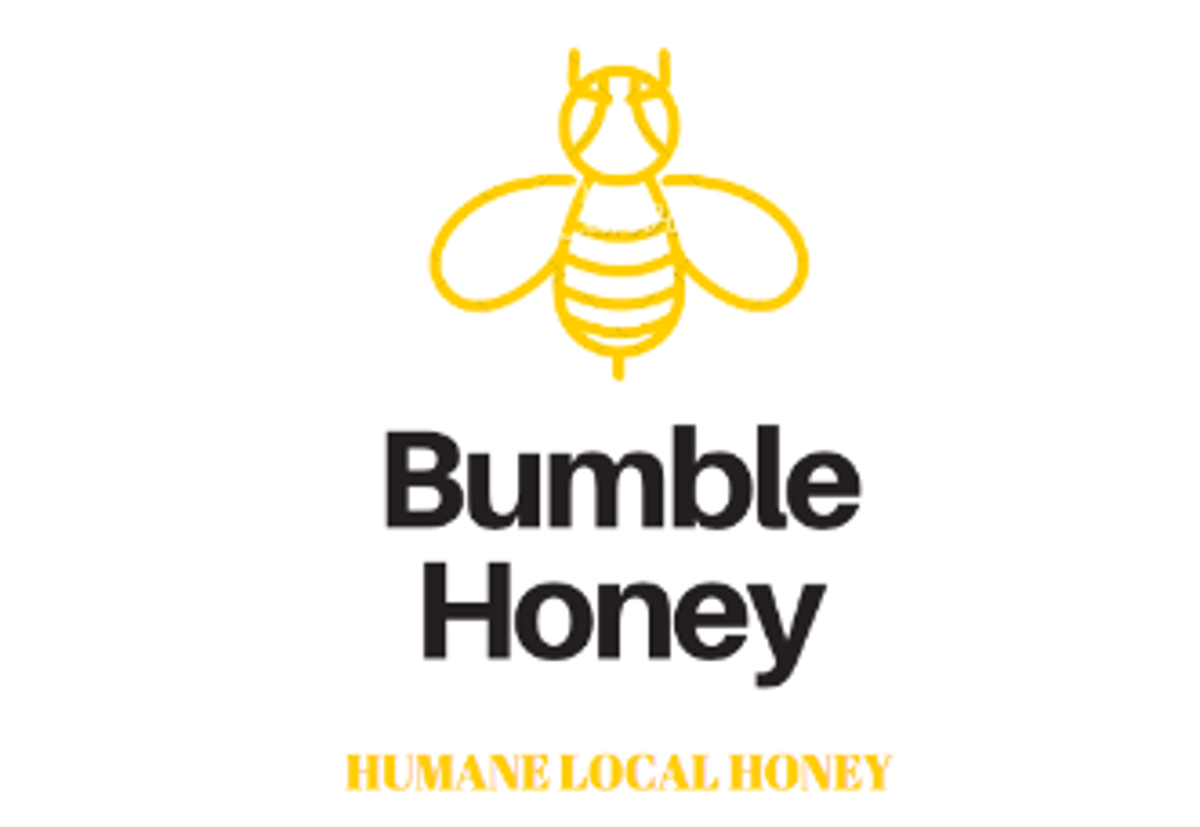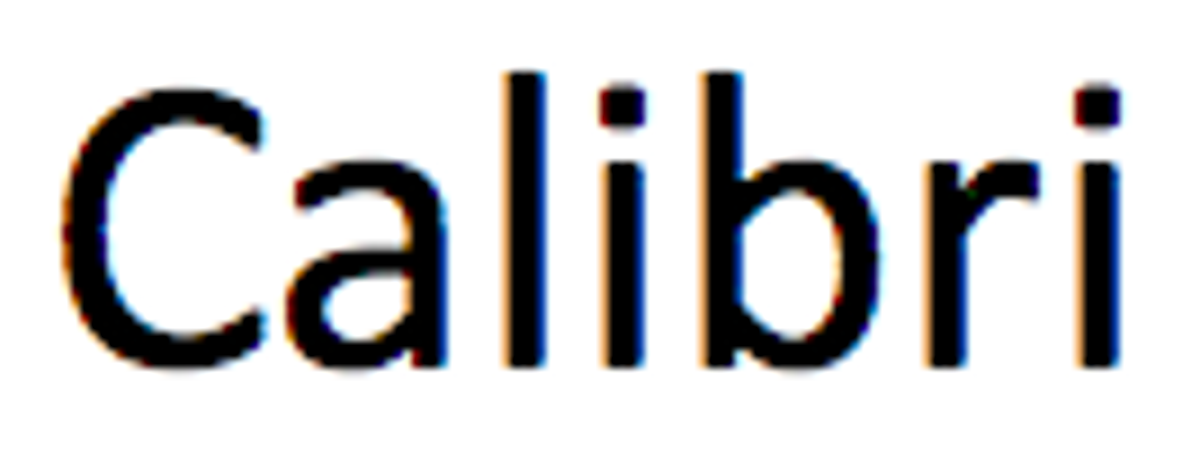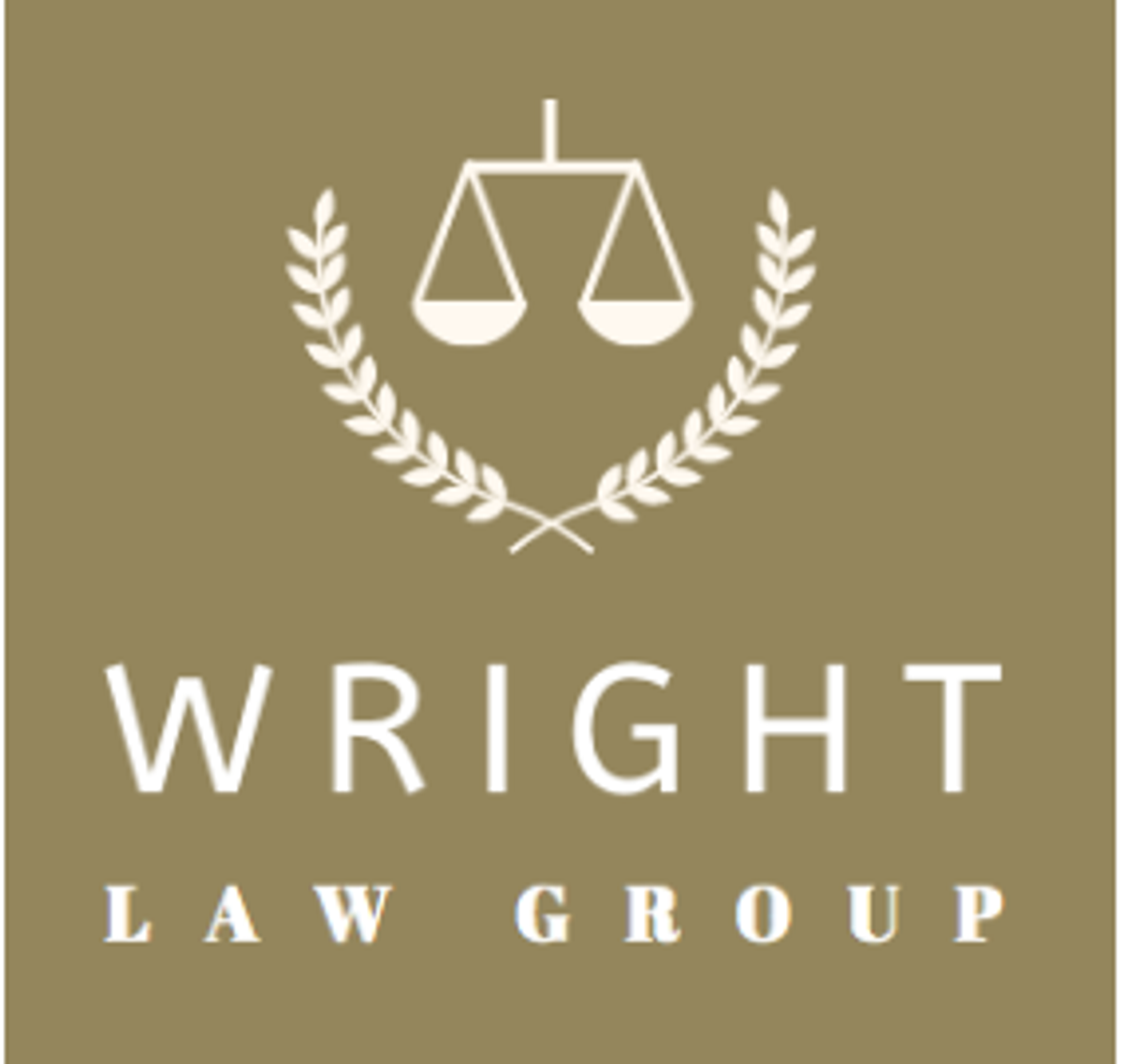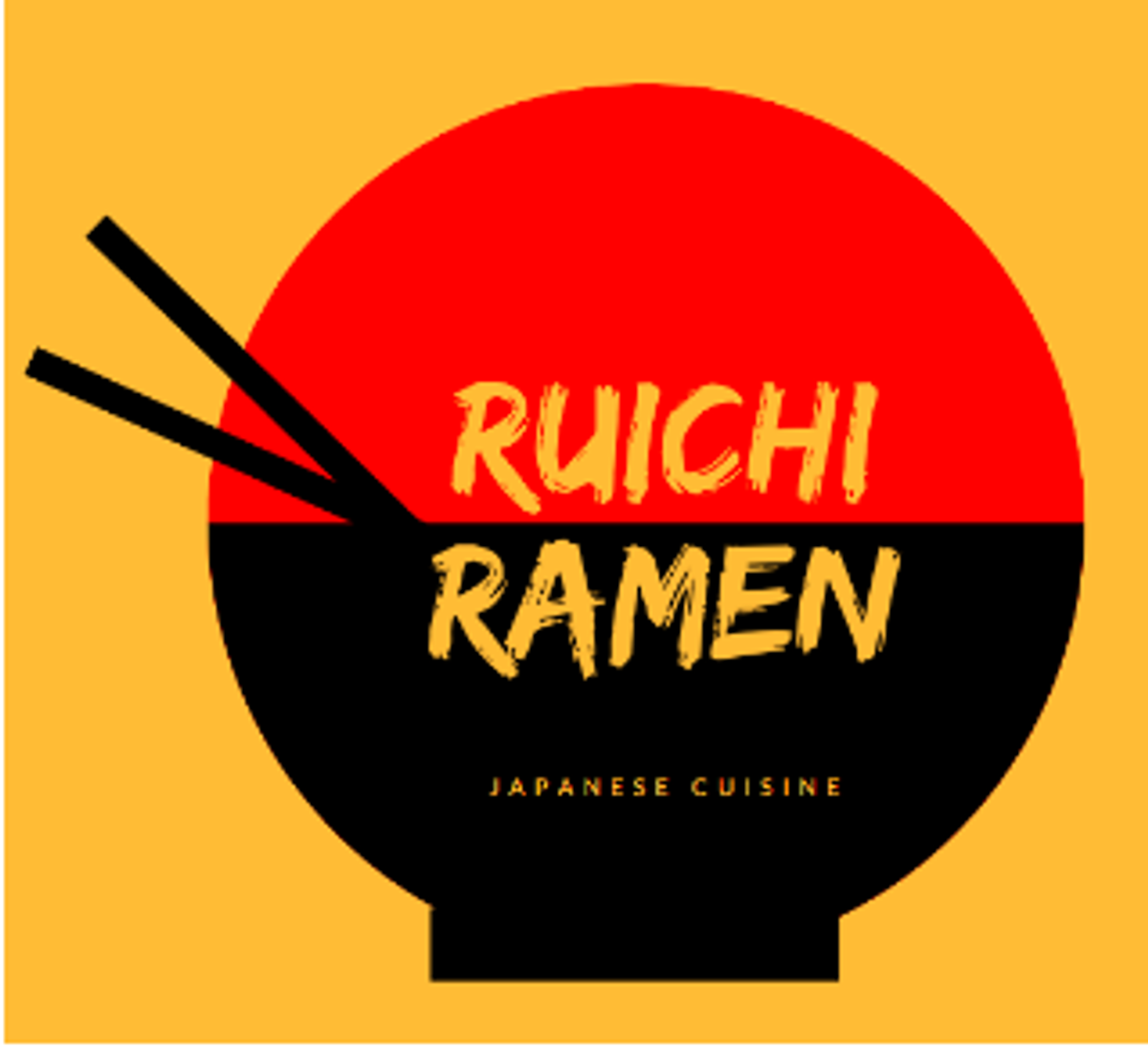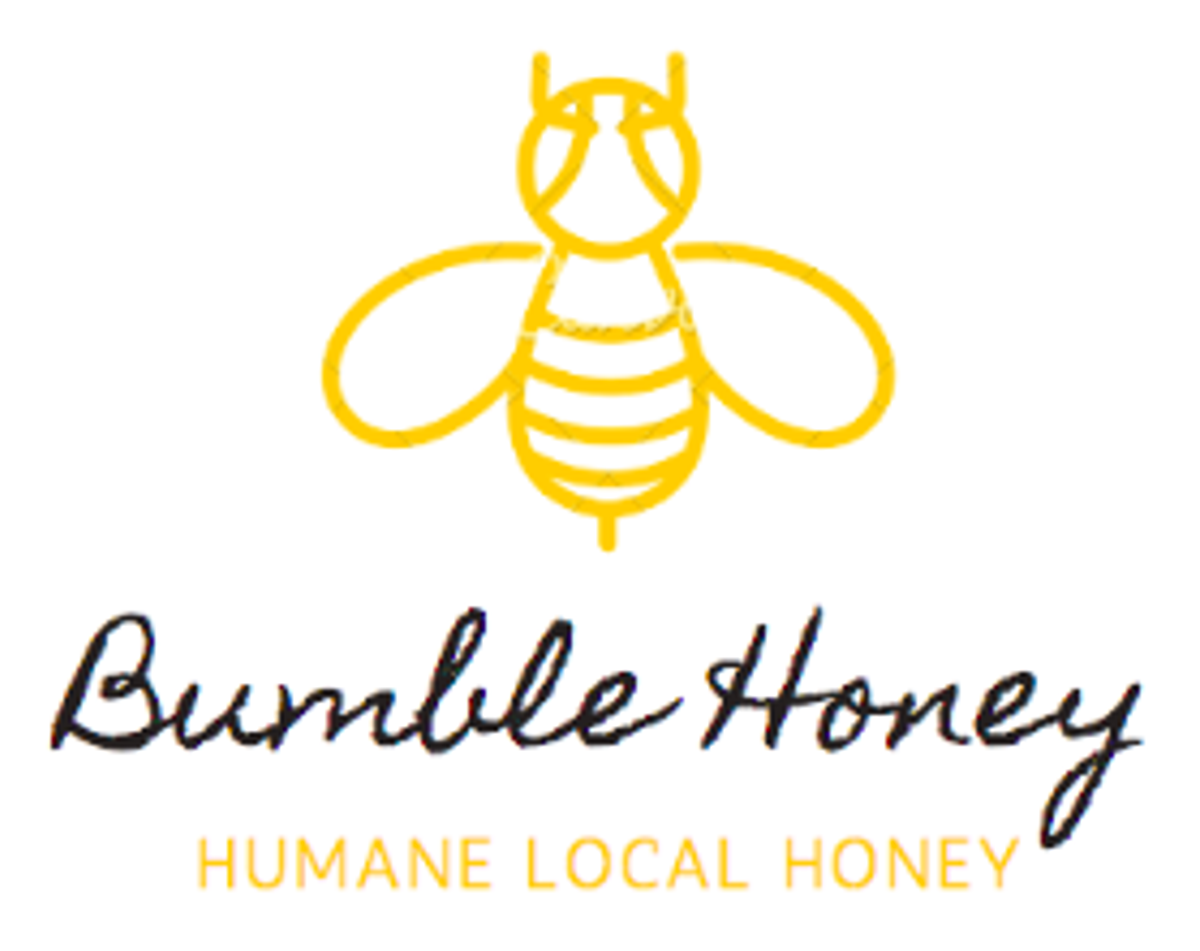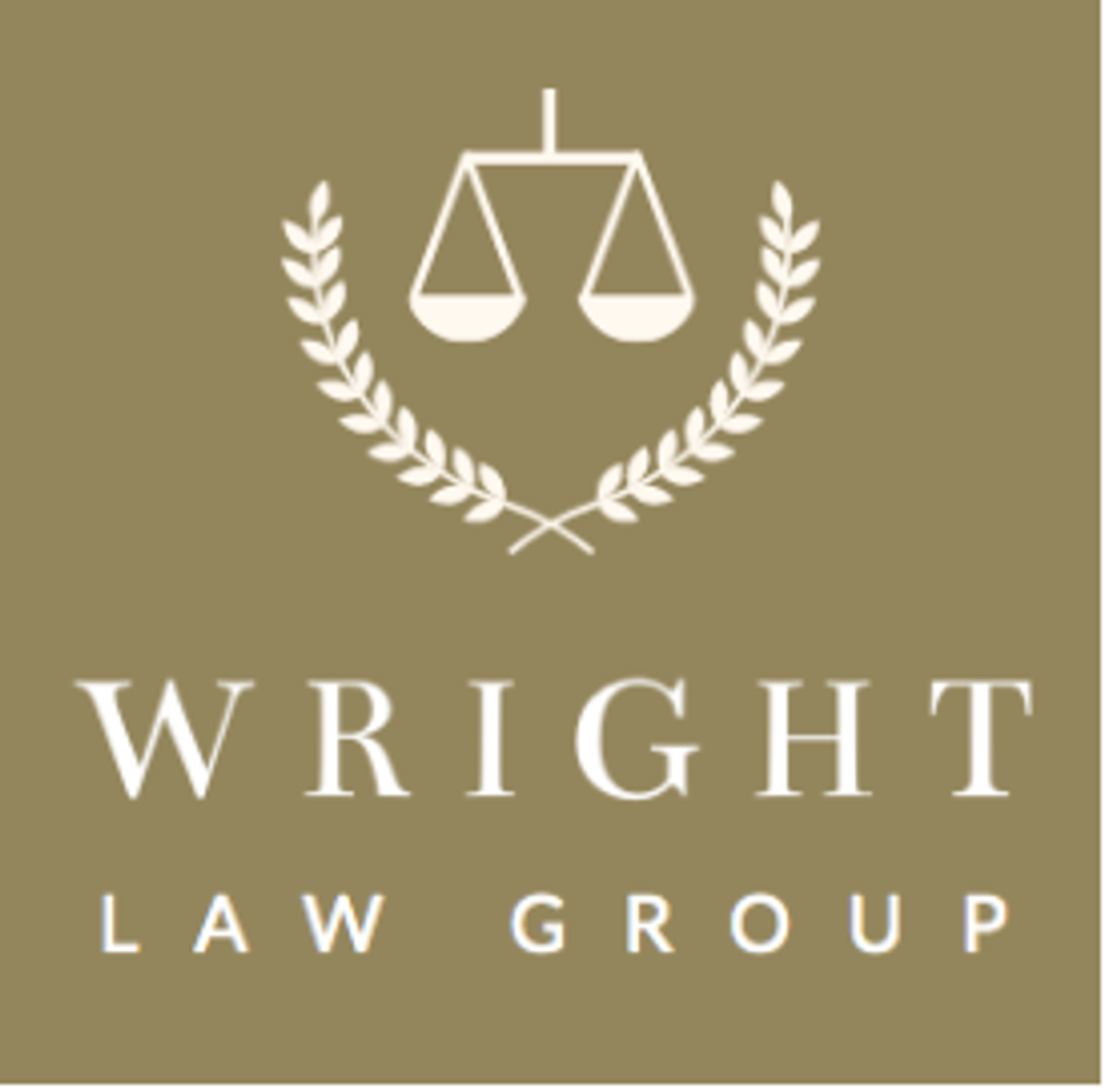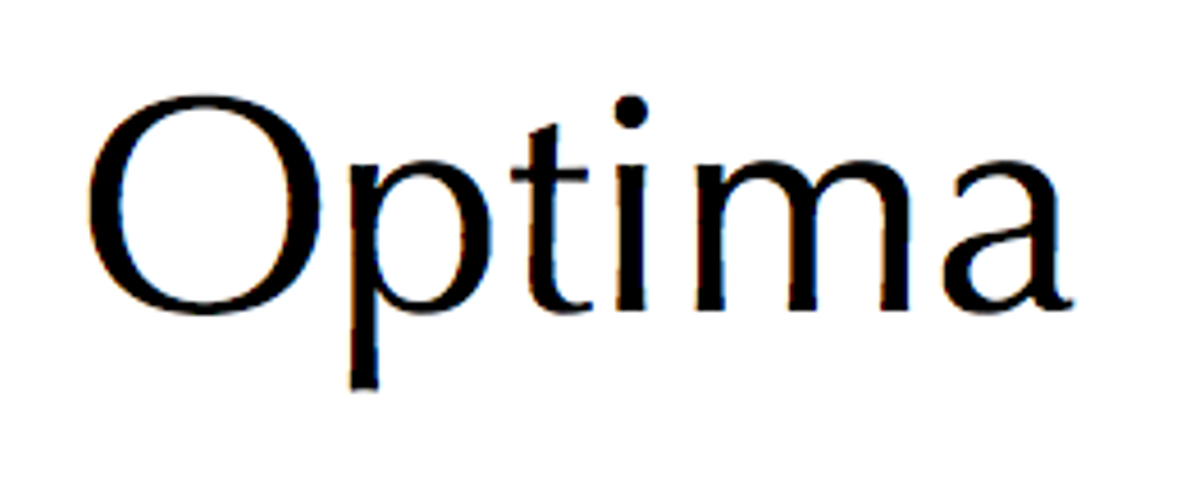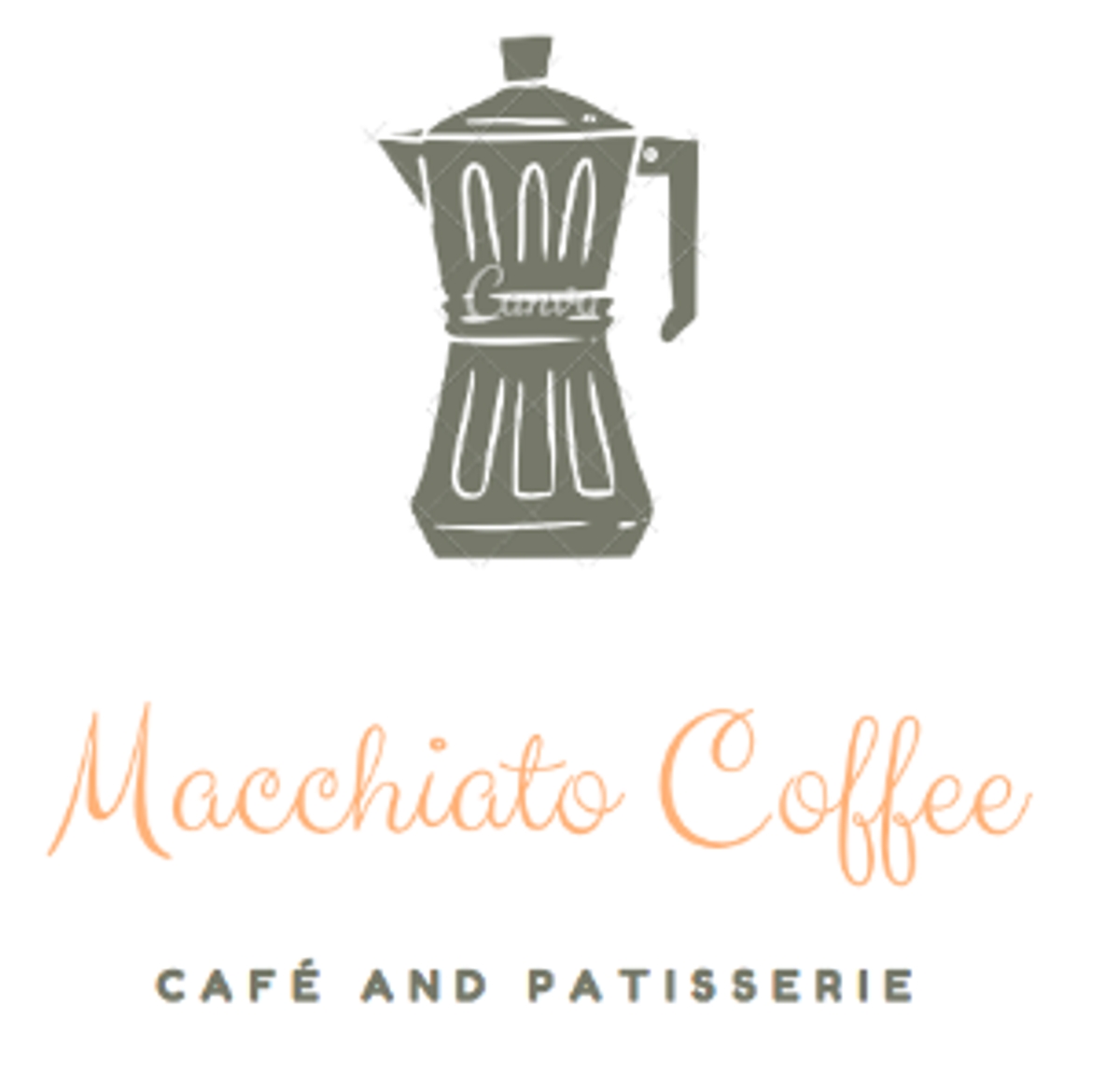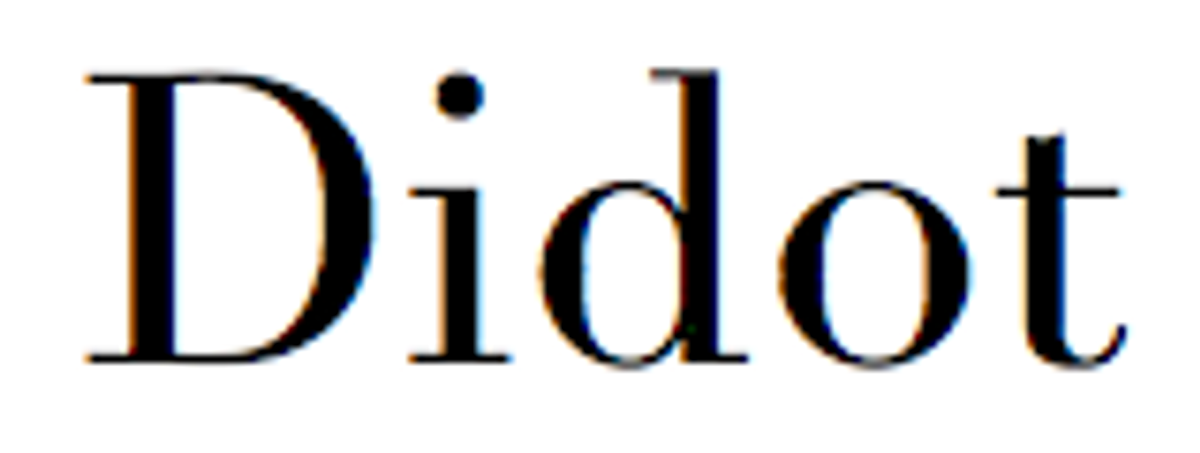
Typography 101: How to Choose the Best Fonts for your Brand
Learn the basics of typography and discover how to choose the perfect fonts that align with your brand’s personality and leave a lasting impression.
Fonts. There are so many in every style imaginable, and they can leave a strong impression on people. Typography is more than an accompaniment to your brand. It can be your brand. And even if your branding is heavy on graphics, all written words need fonts and styling. But there are thousands of fonts available online, and many have a reputation attached to them. How do you choose which ones to use? Let’s talk about that to start.
Famous companies that use typography as a logo
What makes a font?
You see typography everyday, and everywhere. You’re seeing it right now! But what are the differences between different fonts? And what makes them better for a certain business or use? In this post, we’ll go over the basics of typography so you can feel confident in choosing fonts for your brand. First, let’s go over the styles (opens in new tab).
Is it Serif or Sans Serif?
You may have heard of the terms serif and sans serif. Put simply, serif fonts possess ‘feet’ on their letters, while sans serif fonts do not. Serif fonts are also considered to invoke a more traditional look, opposed to the more modern sans serif.
Both are the most commonly used font styles across businesses. They’re legible at large and small scales, and with so many fonts available in both styles, you can almost certainly find one that will work for you. We guarantee that your brand will have either serif or sans serif included in it, at least as your body font.
Types of Serif Fonts
Old-Style Serif (oldest existing type and traditional in appearance)
Slab Serif (bold and blocky)
Transitional Serif (the most common)
Modern Serif (drastic difference between thick and thin lines)
Types of Sans Serif Fonts
Grotesque (varying line widths)
Neo-Grotesque (most common, plain in appearance)
Humanist (varying line widths, highly legible)
Geometric (based on geometric shapes)
Script Fonts
Scripts are often considered to be tricky to implement into a brand identity (opens in new tab). However, like with any other font, you can easily choose one that will complement your business’s image. Scripts are broken down into formal and modern styles. Formal scripts tend to resemble traditional calligraphy, such as Snell Roundhand. Modern scripts on the other hand, are bolder and often intended to emulate handwriting from today’s age. A good example of a modern script is Yellowtail.
Display Fonts
Display fonts are the broadest category of fonts, and can range from highly stylized retro fonts, to illegible symbol fonts. Display fonts are not suitable for body copy, but can make a lasting impression when used in logos and to emphasize main headers. However, display fonts must be chosen with care, and tend to complement trendy or modern brands more than others. Below, you can see examples of the fonts Rock Salt and Monoton.
Which Fonts Suit Which Business
Okay, so knowing the styles of fonts is helpful, but how do you choose from them? Many of the same advice for choosing your brand colors (opens in new tab) applies to choosing your fonts. Depending on your target audience, your products and services, and the feel of your business, your fonts may change.Here are a few tips and guidelines for you. Start by determining where your business falls in the following categories.
If your business is more formal and classic, but with a lighter presence, you may want to use a thin script or serif font for your main font, and a sans serif with varying line weights. On the other hand, if your business is more on the informal side, with a modern and dramatic feel, a bold display font and a sans serif could be a good pairing.
Here are some examples of how the different types of fonts can be implemented.
• Serif: Traditional, classic, invokes a professional feel, can be used in dramatic and light branding
• Sans Serif: Modern, best style for body fonts, most versatile, and tends to be the most legible
• Script: Usually has traditional values, but can also be used in a modern branding, not suited for small or body text, can invoke feelings of luxury or femininity
• Display: Hyper modern, least suited as a body font, best used when at a larger size, most diverse style, can invoke a wide range of feelings and emotions, best used in dramatic branding